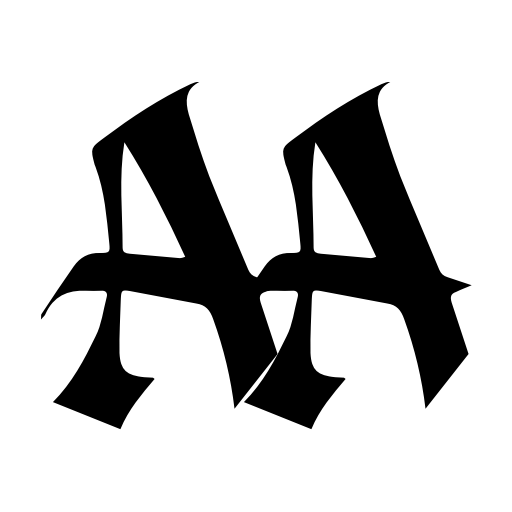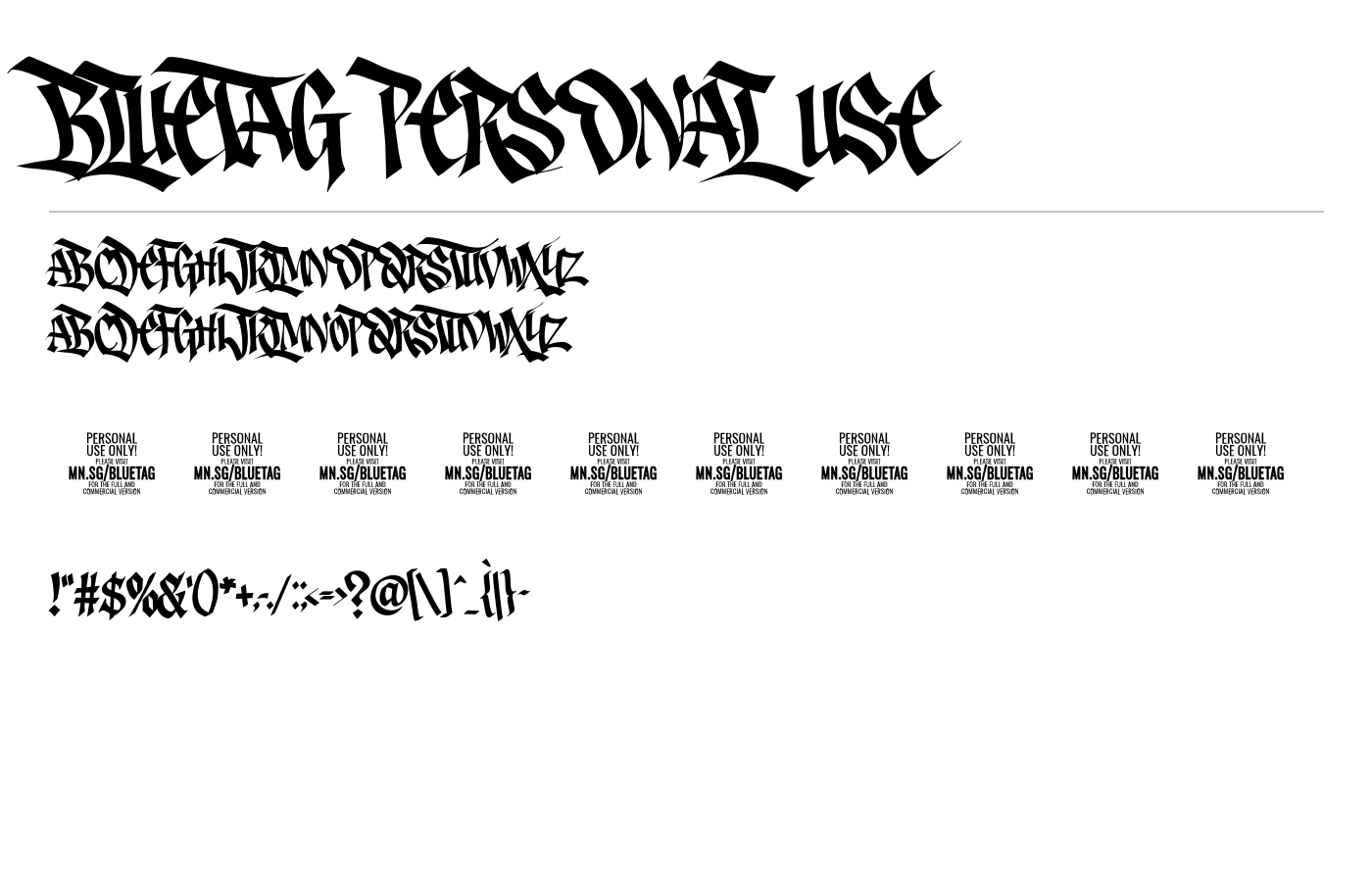
Bluetag PERSONAL USE is a bold, decorative display font with a graffiti-inspired style that features sharp, angular strokes and a dynamic, edgy appearance. Its dense, high-contrast letterforms create a strong visual impact, making it ideal for urban-themed designs, logos, posters, and other creative projects seeking a vibrant, rebellious vibe. This font works best in headlines or short bursts of text where its unique character can shine without losing readability.
Bluetag PERSONAL USE Font
About Bluetag PERSONAL USE Font